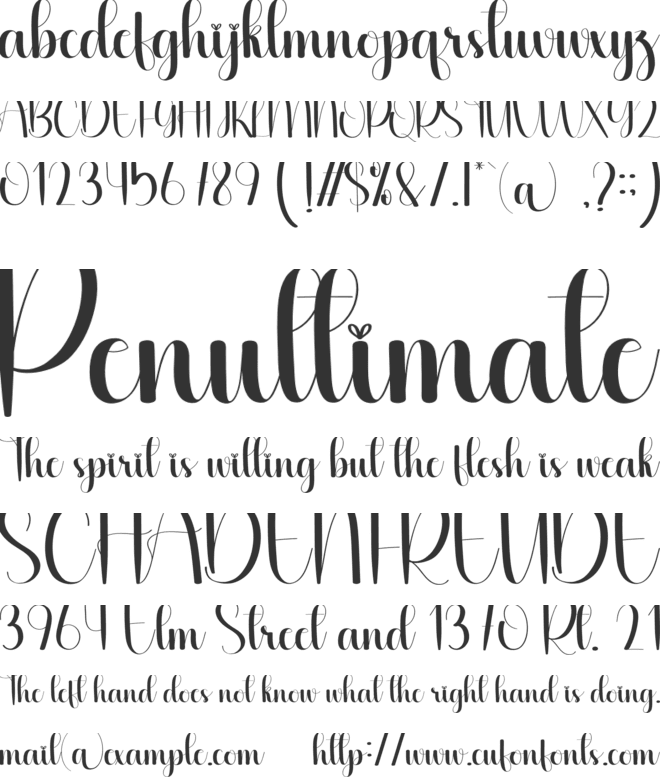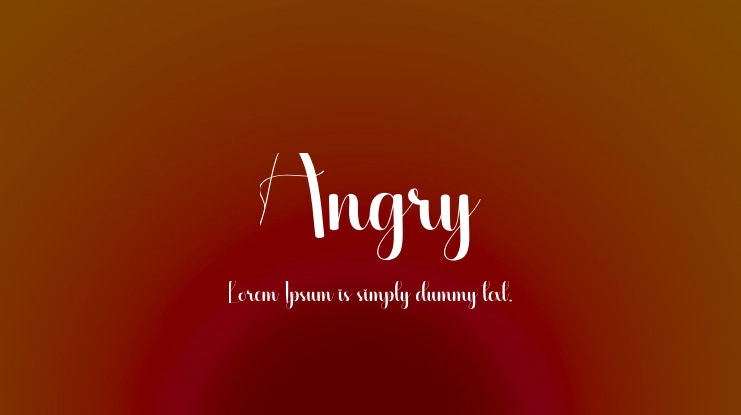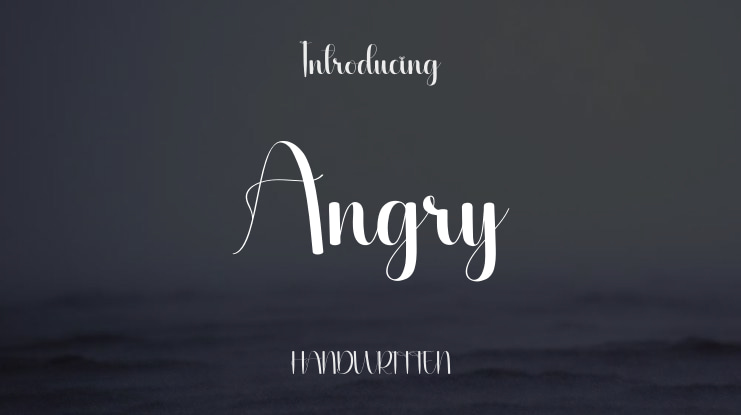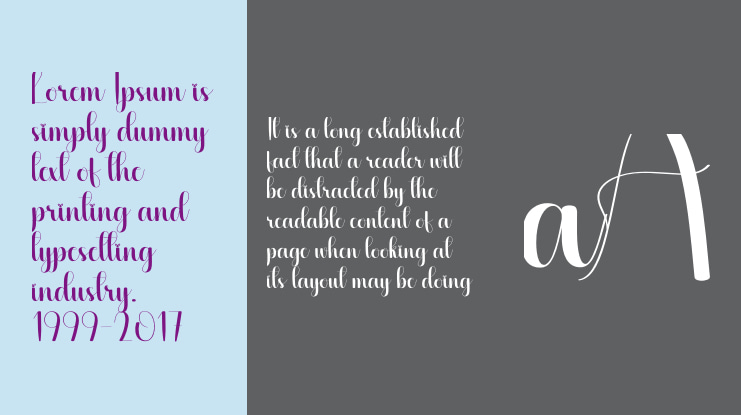
Angry Font
Introducing our special creative products designed just for you. Our offerings promise to deliver an extraordinary experience. The latest styled fonts we provide are ideal for a myriad of uses: wall displays, wedding invitations, social media posts, logos, advertisements, product packaging, design projects, labels, photography watermarks, invitations, and stationery. Essentially, they suit any project where elegant handwriting is called for.